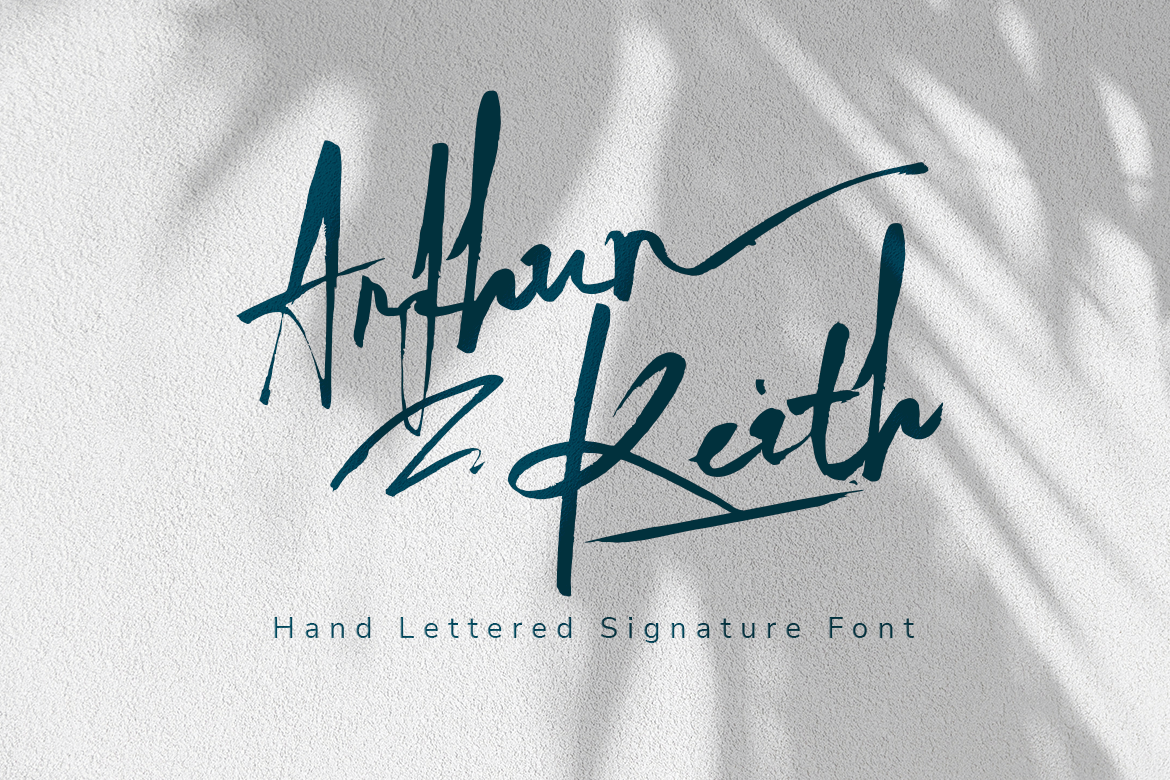
Arthur Keith - Signature Style Font
More information about this Font Arthur Keith Signature Style Font Is A Great Font For any project! This font is made with an awesome taste and classy with natural touch, lots of ligatures, SAlt, and Swash. We keep this font looking Natural, easy to read, elegant, stylish, attractive and very easy to use.